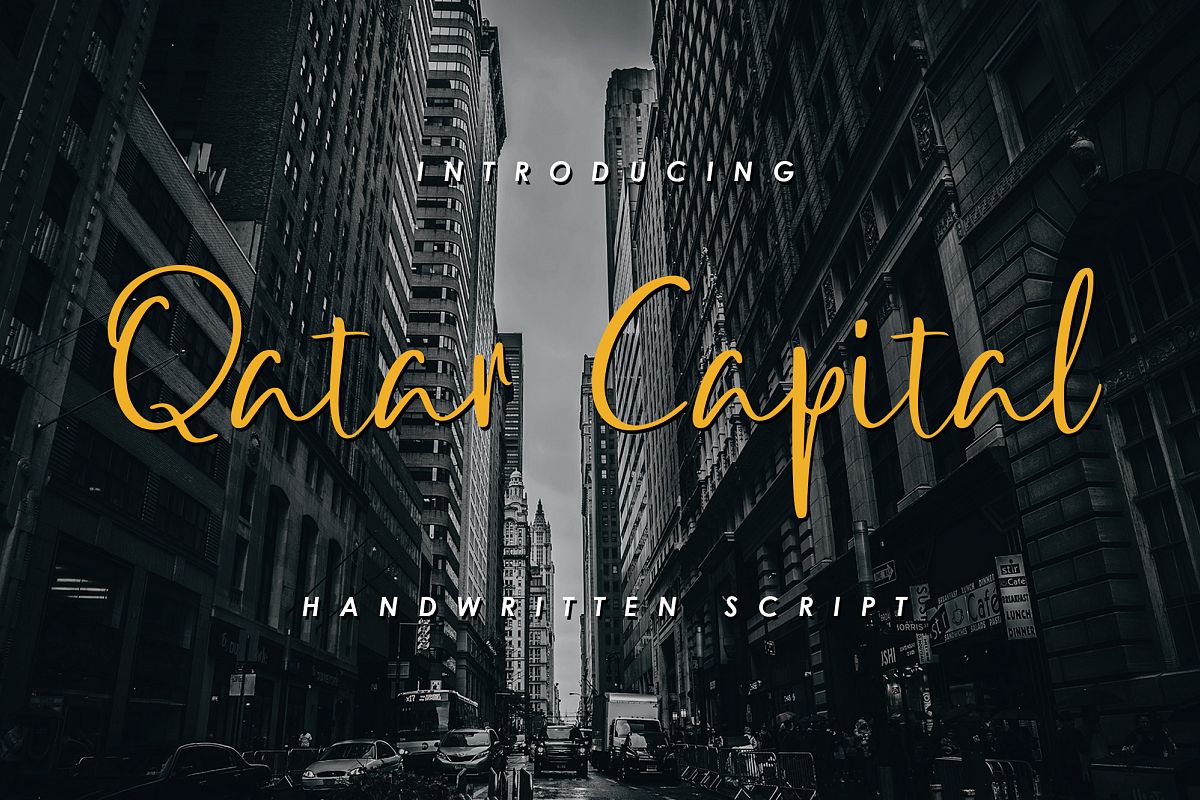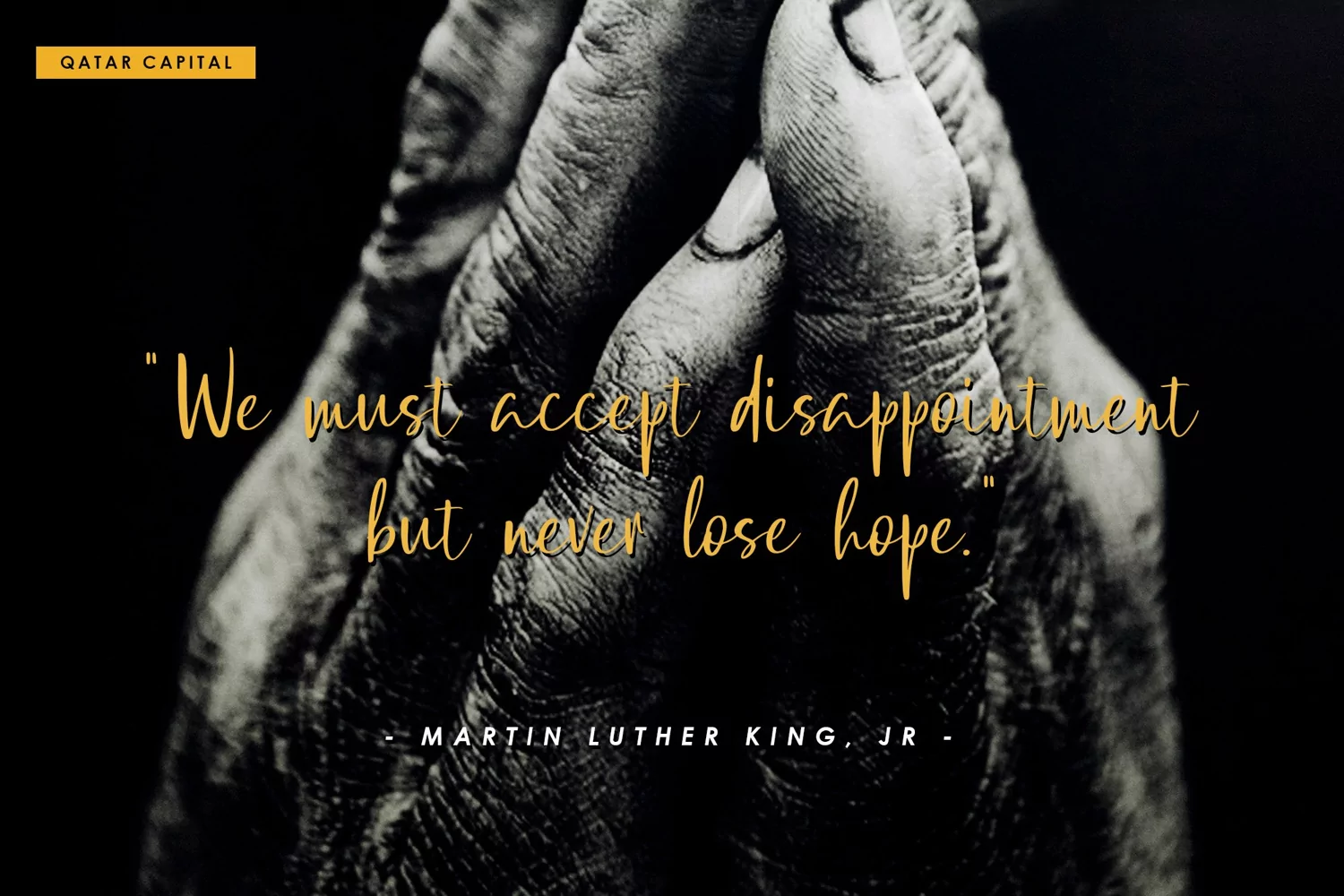
Qatar Capital
Introducing script fonts, Qatar Capital is handwritten script fonts with natural and authentic typeface. This fonts giving realistic hand-lettered effect with two style (regular and italic). Every single letters have been carefully crafted to make your text looks beautiful.
It is perfect for branding, logotype, magazine, website headlines, packaging, branding, quotes, invitation cards, greeting cards, business cards, and wedding more.Qatar Capital allows full access the characters without having special designing software. This fonts are support for multilingual languages.